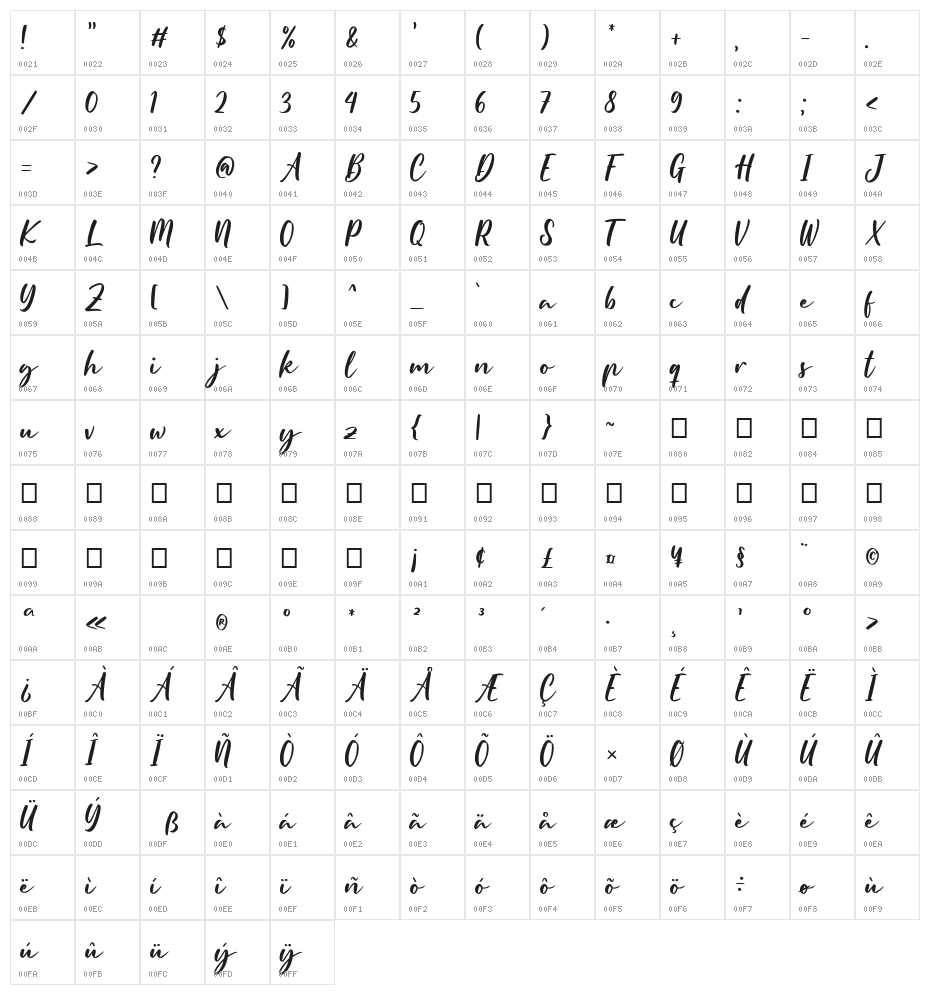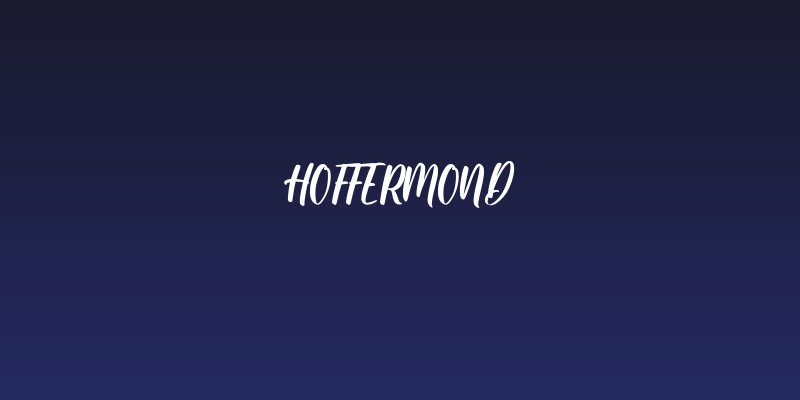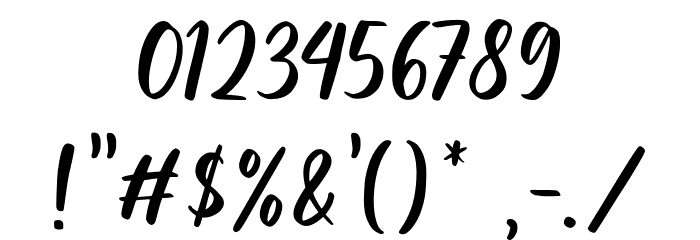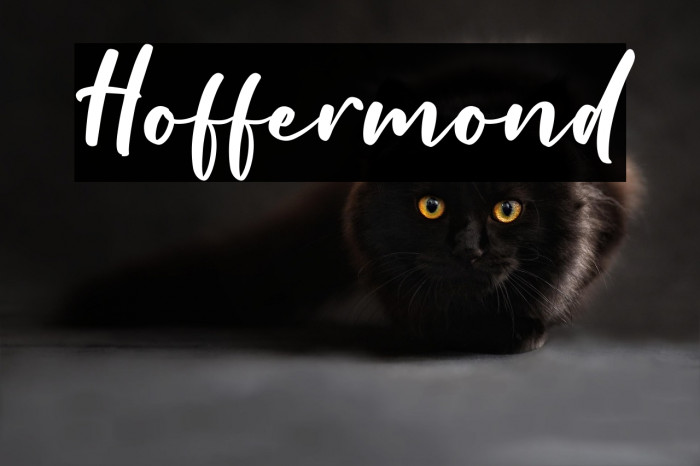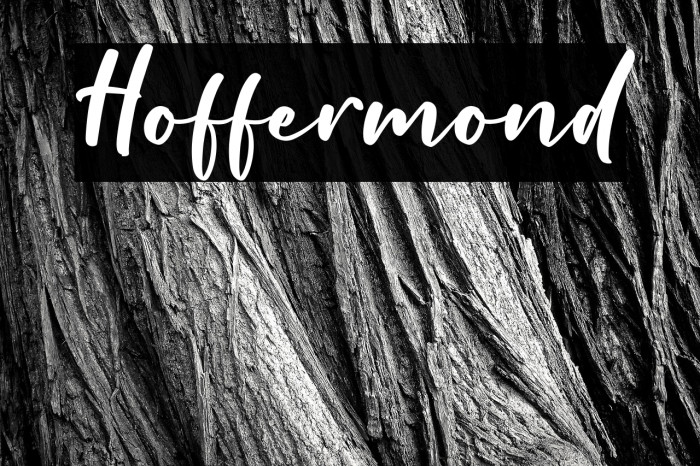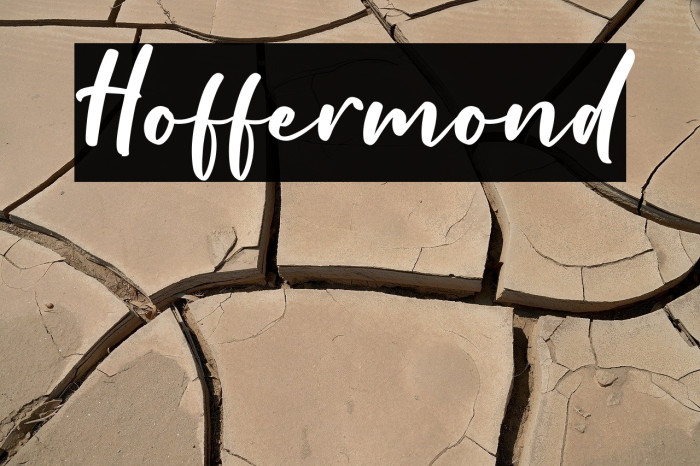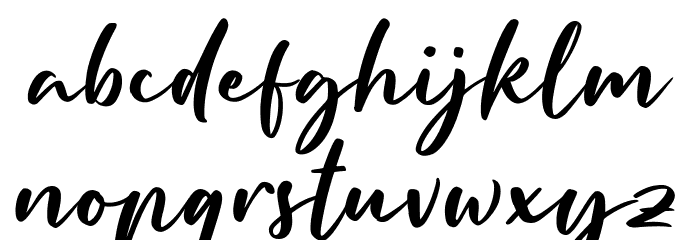
Hoffermond Font
Hoffermond Description
This font features a dynamic and expressive script style, characterized by fluid strokes and a handwritten appearance. The uppercase letters are bold and slightly slanted, giving a sense of movement and elegance. The lowercase letters maintain a consistent flow, with smooth curves and a natural, organic feel. Numbers and special characters are designed to complement the overall style, ensuring readability while maintaining the artistic flair. The font's design is suitable for projects that require a personal touch, such as invitations, greeting cards, and branding materials.
| Proposed Projects | Ideal for invitations, greeting cards, branding, and any project needing a personal touch. |